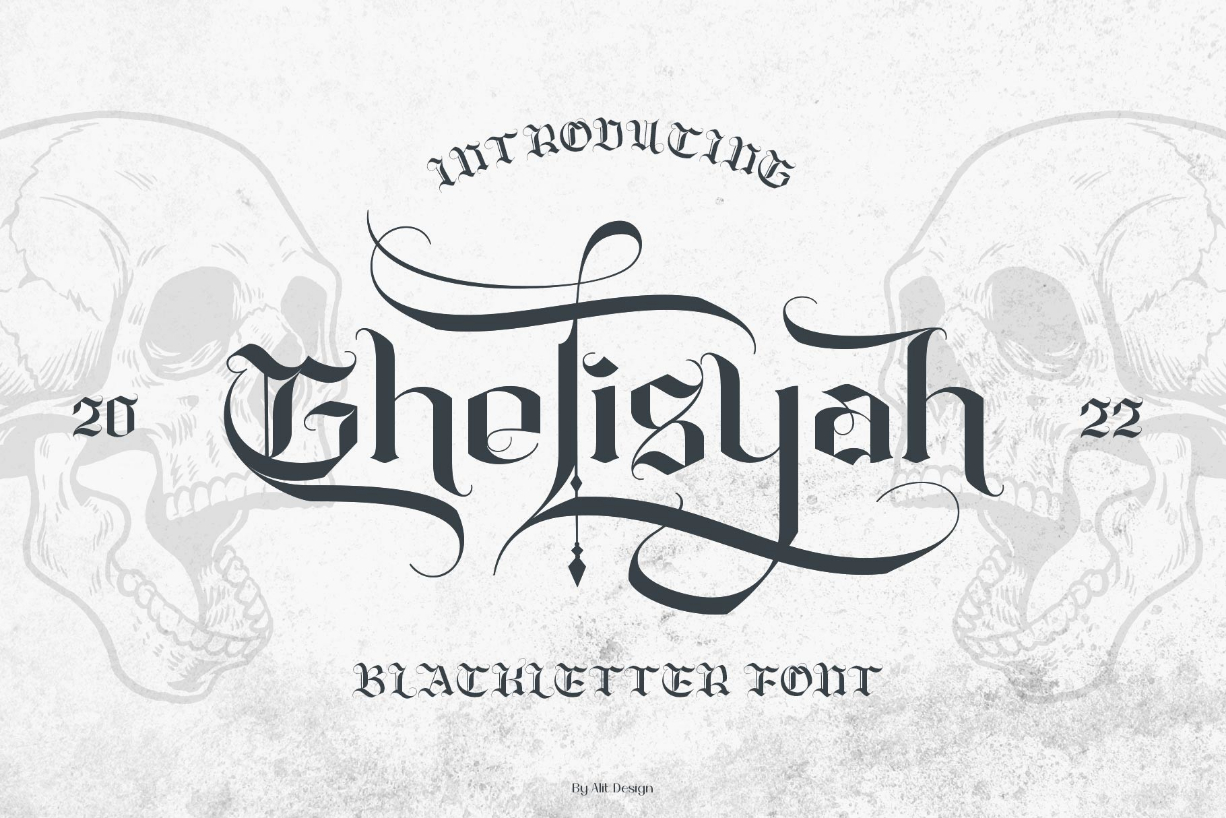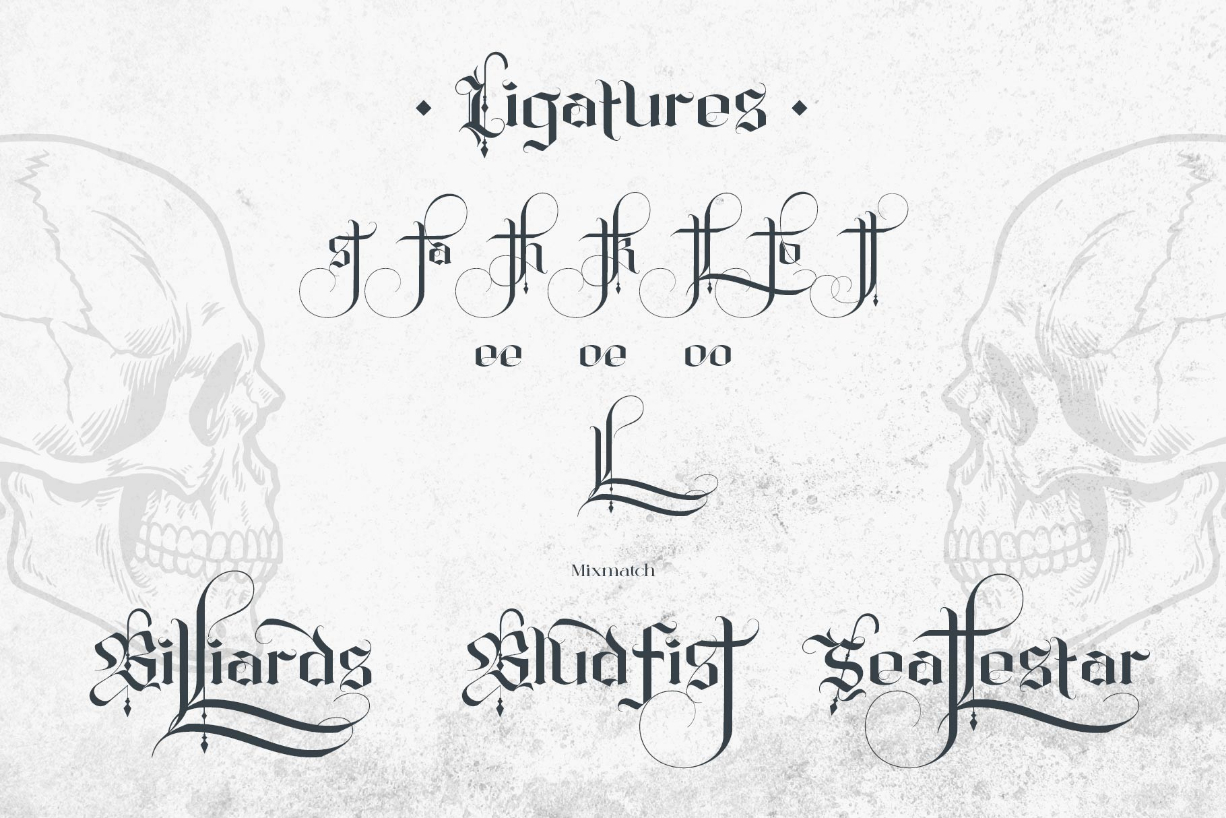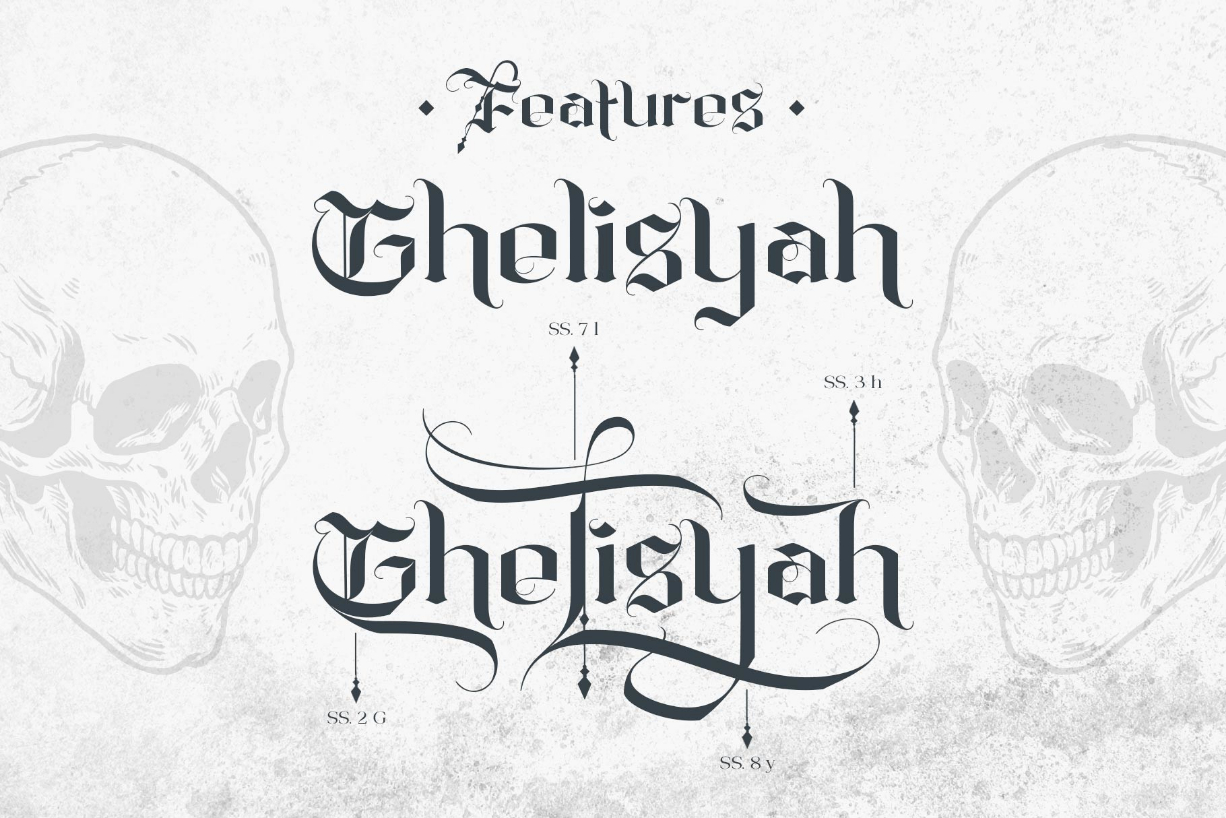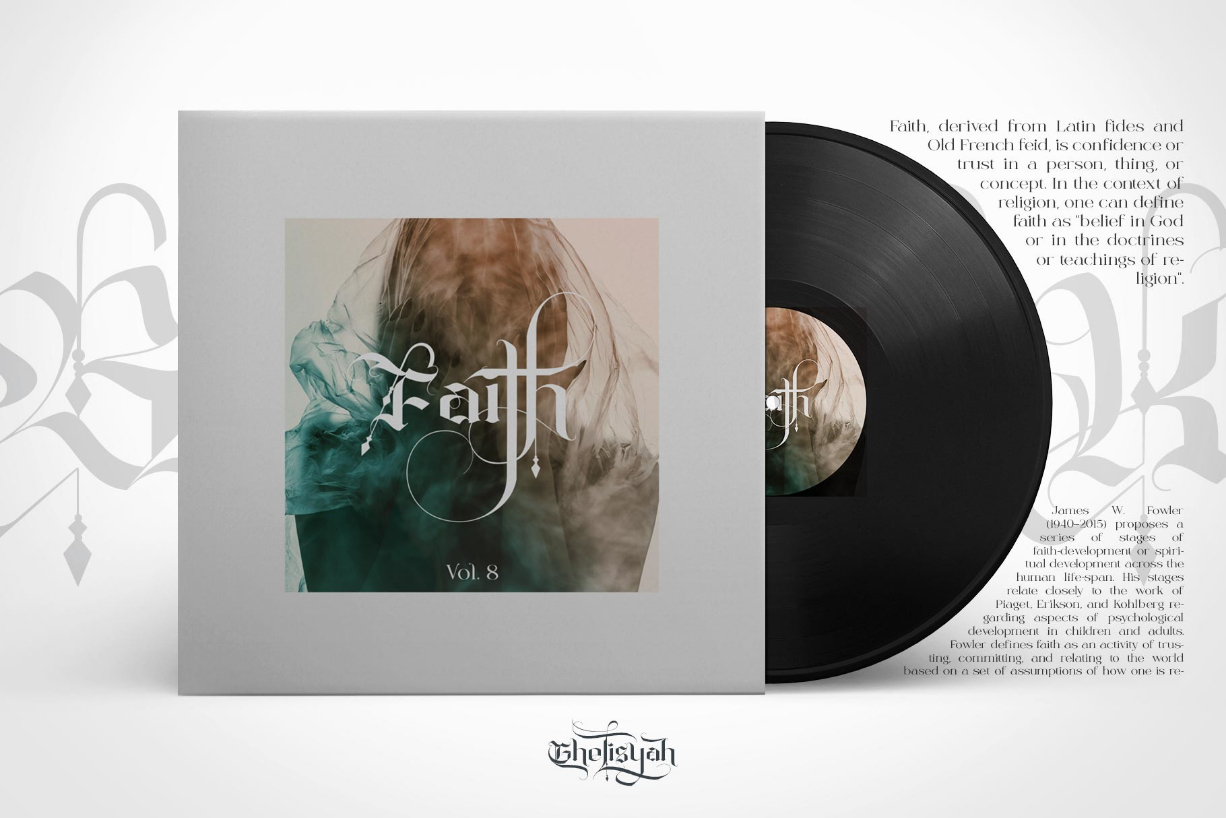
About Ghelisyah Font
✒️Ghelisyah✒️is a font inspired by the Blackletter typeface. It is made with a modern impression but still looks strong and unique. Supported by alternative options such as swash, ligature, and alternative characters, Ghelisyah is perfect for creating designs with strong or dark themes.
The Ghelisyah font is suitable for music album covers, tattoos, logos, whiskey labels, packaging pomades, and so on.